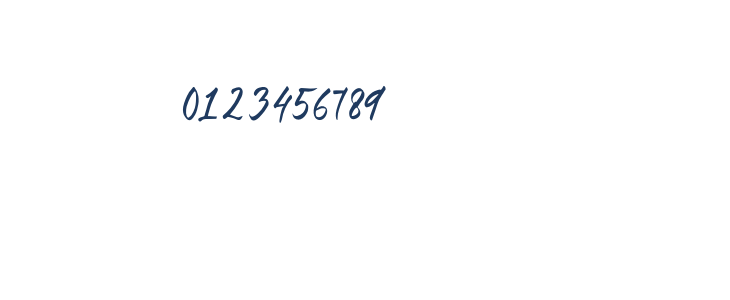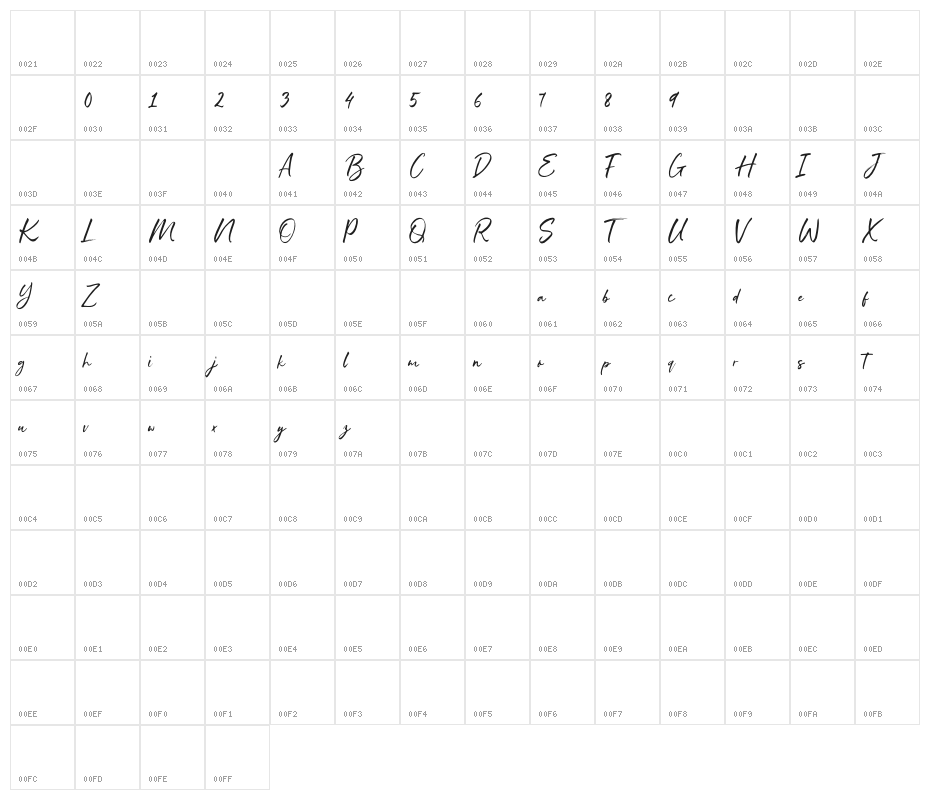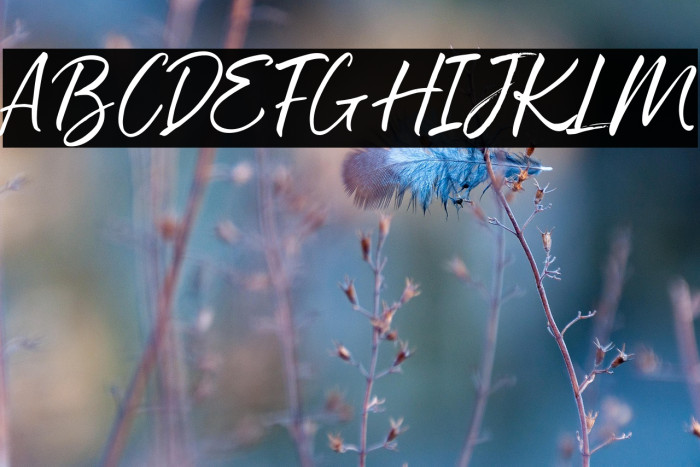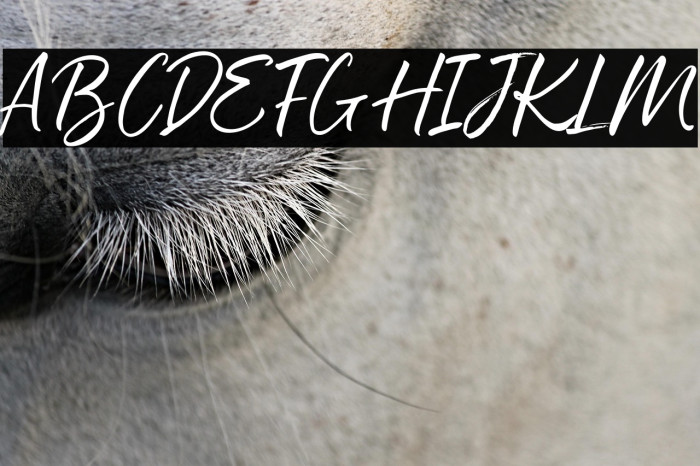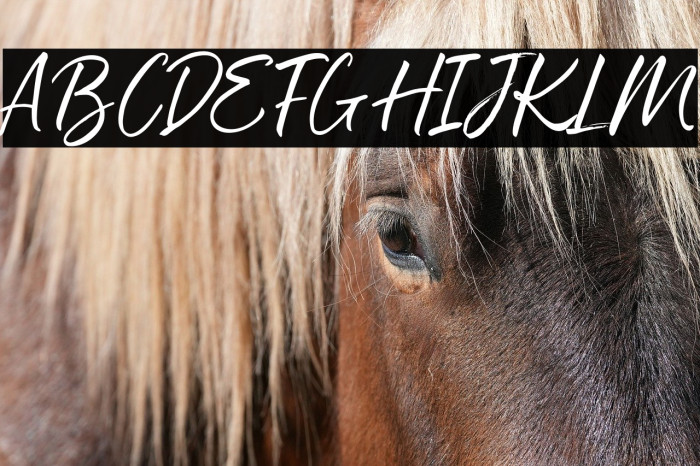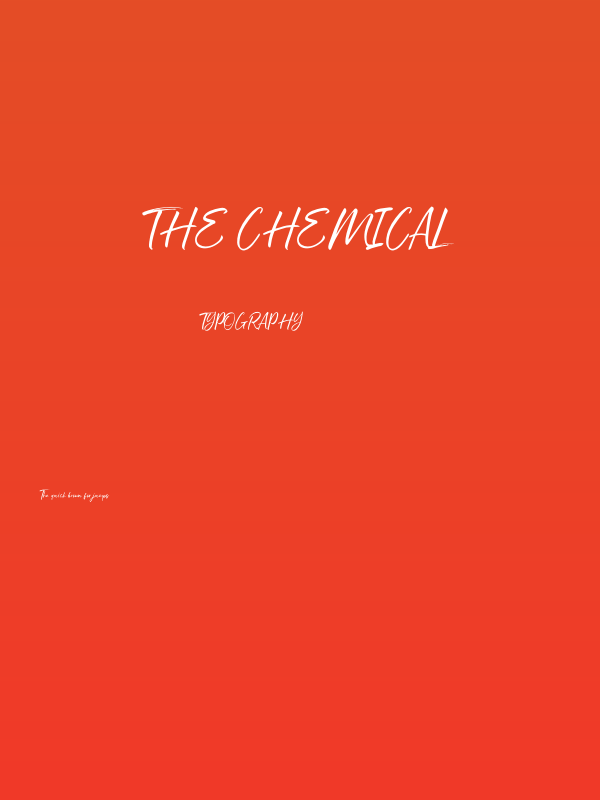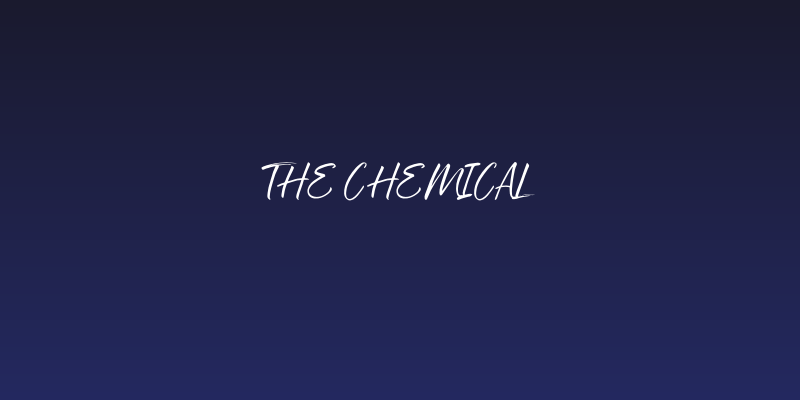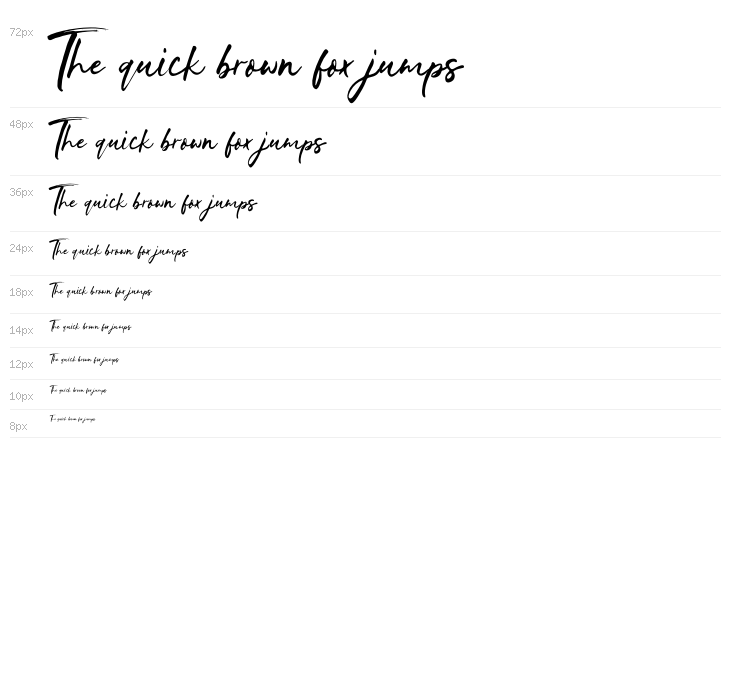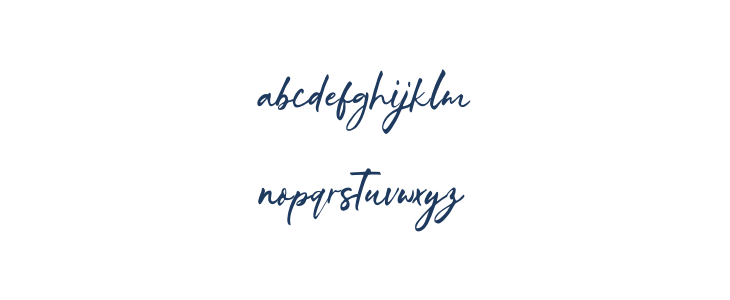
The Chemical Font
The Chemical Description
This font features a dynamic and flowing script style, characterized by its elegant and cursive letterforms. The uppercase letters are bold and sweeping, with a sense of movement and flair, while the lowercase letters maintain a consistent fluidity and grace. The numbers are crafted with the same attention to detail, offering a cohesive look across all characters. The font's design is reminiscent of handwritten calligraphy, making it suitable for projects that require a personal and artistic touch. Its unique style is both modern and timeless, providing versatility for various design needs.